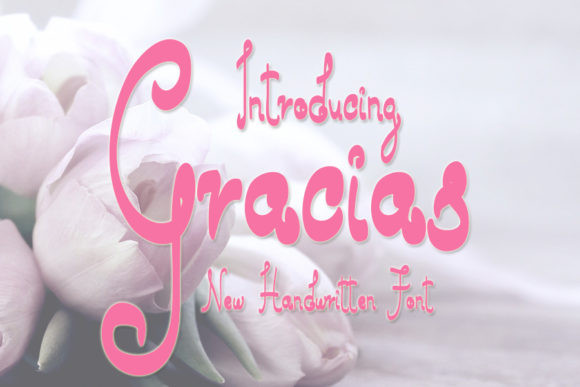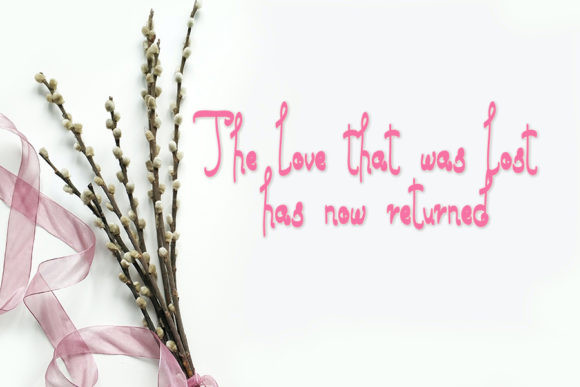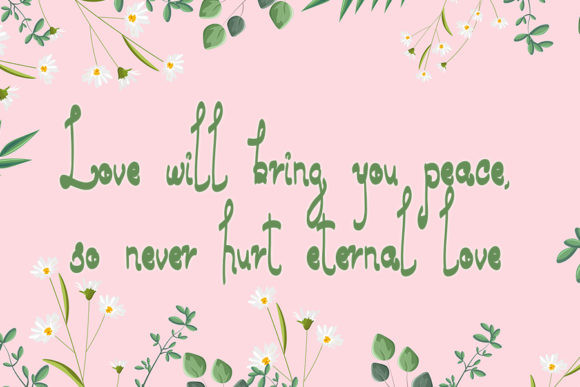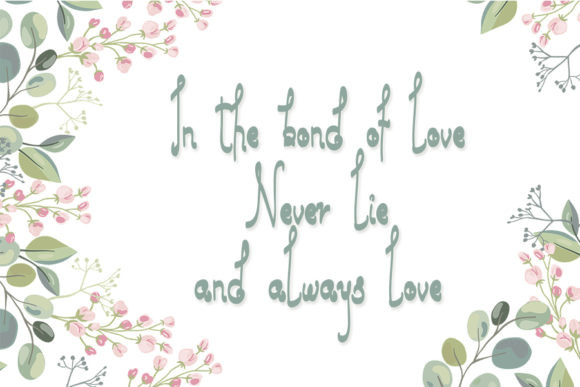
Gracias Font
Gracias is an enchanting handwritten font. This versatile script font has a wide spectrum of applications ranging from greeting cards to headlines and is guaranteed to add a romantic feel to your next project.